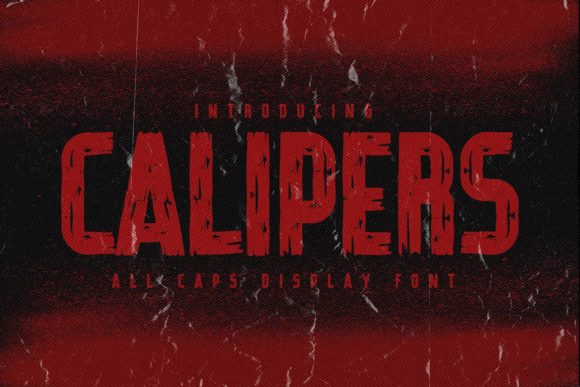
The Ultimate Display Font: Calipers and Its Endless Design Possibilities
I’ll never forget the time I was working on a food menu design project, and I just couldn’t seem to find the perfect font. My client wanted something bold, eye-catching, and able to convey the warmth of their brand. I scoured the internet, tried out countless fonts, but nothing seemed quite right. That was until I stumbled upon Calipers – a bold, rough textured, and thick lettered display font that instantly caught my attention. In this article, I’ll share my experience with Calipers, its features, and how to make the most of it in your designs.
An Honest Review of Calipers Font
What I Love About Calipers ✨
- 💥 Impactful and Attention-Grabbing: Calipers is perfect for creating stunning headlines, titles, and short text passages that demand attention.
- 📸 High-Quality Texture: The rough texture gives the font a unique, organic feel that’s perfect for food, craft, or lifestyle designs.
- 🎨 Versatile and Customizable: With OpenType features and glyphs, you can experiment with different styles and alternates to match your brand’s tone.
- ✅ Easy to Read: Despite its bold and textured nature, Calipers remains surprisingly legible, even at smaller sizes.
- ⚠️ Limited Use Cases: Due to its bold and textured nature, Calipers might not be the best fit for body text or lengthy passages.
- ⚠️ Glyph Limitations: Some users have reported limited glyph options, which might restrict the font’s use in certain design scenarios.
A Practical Guide to Using Calipers in Your Designs
- Experiment with stylistic alternates to create unique and customized text passages.
The Backstory Behind Calipers
Calipers was designed with the intention of creating a bold, eye-catching font that would stand out in any design. Inspired by the world of food and crafts, the designer aimed to create a font that would evoke a sense of warmth and authenticity. With its unique texture and sturdy letterforms, Calipers has become a go-to font for designers looking to add a touch of personality to their work.
| Author | Gassstype Studio |
| What is Calipers font best used for? | Calipers is ideal for display text, headlines, titles, and short text passages in designs such as food menus, posters, flyers, and prints. |